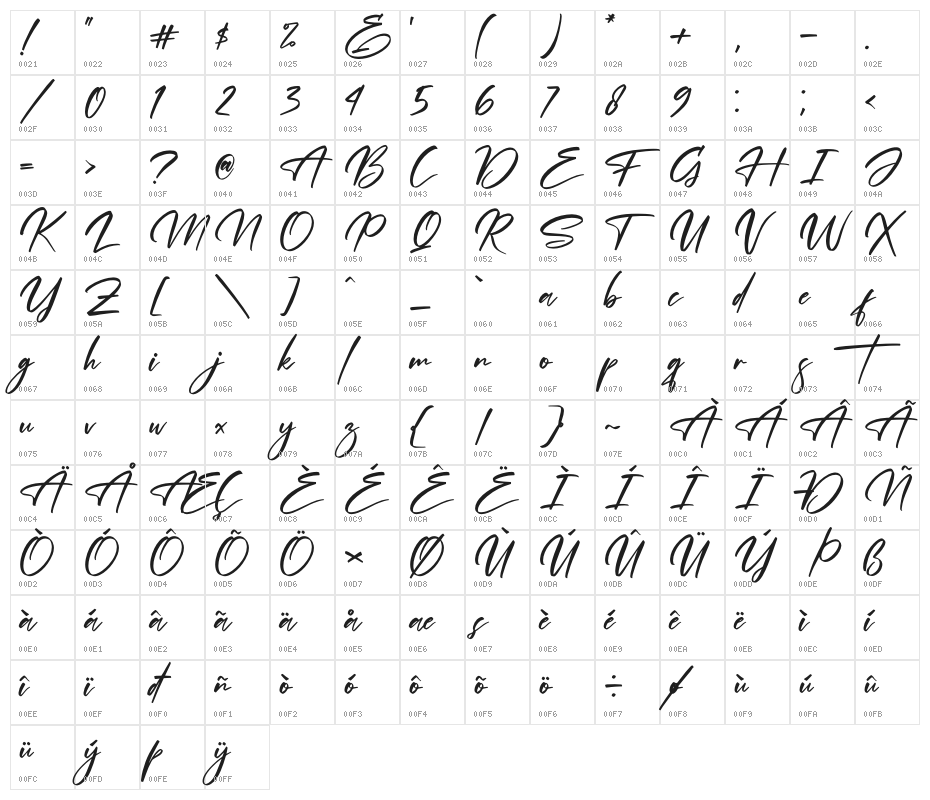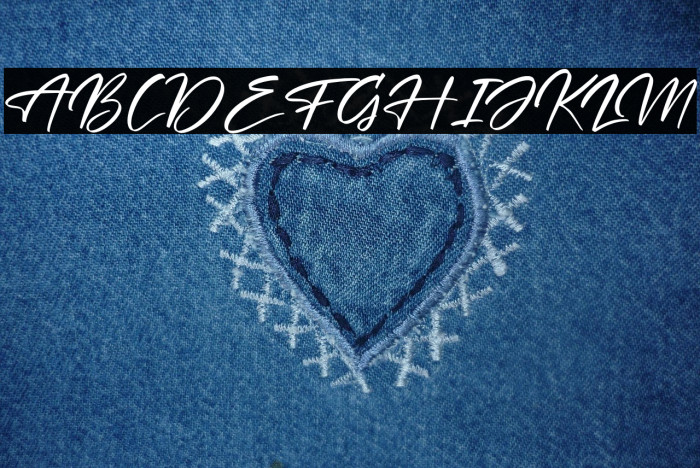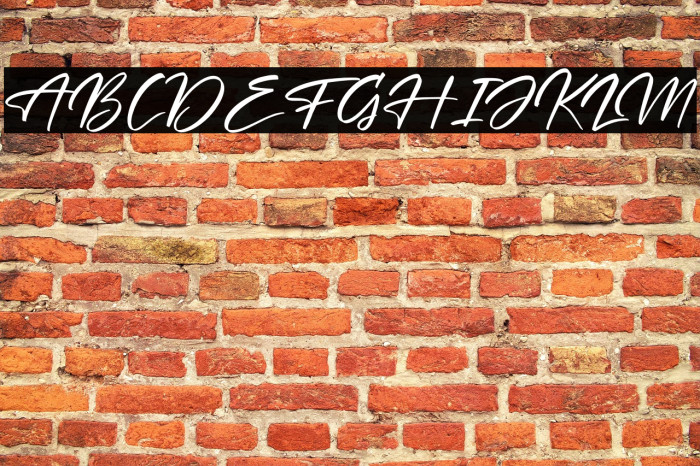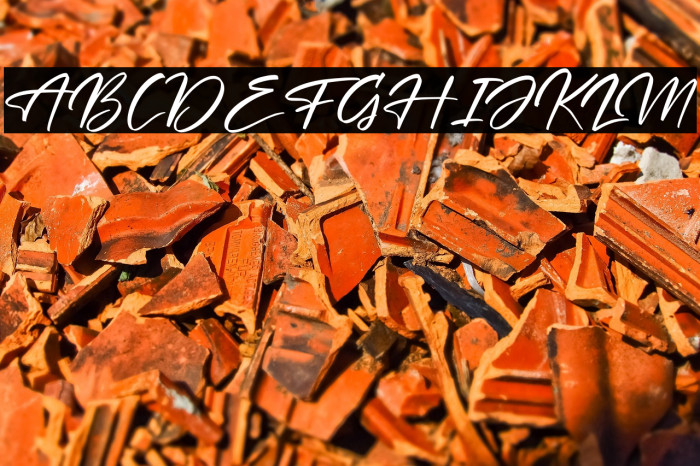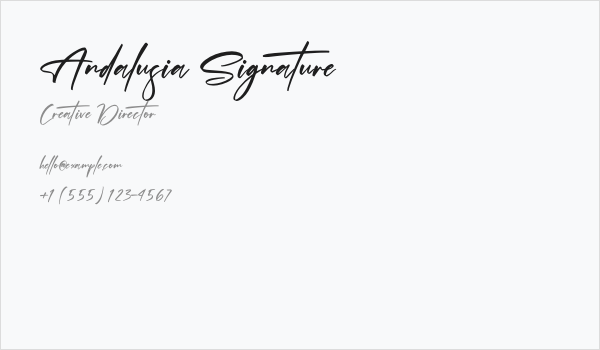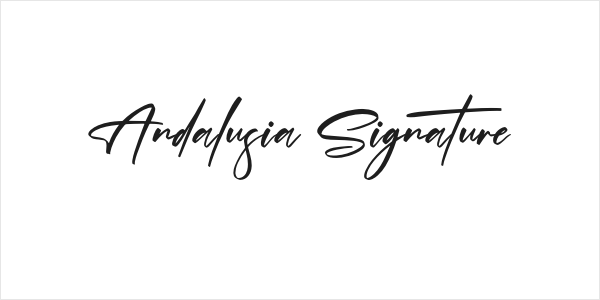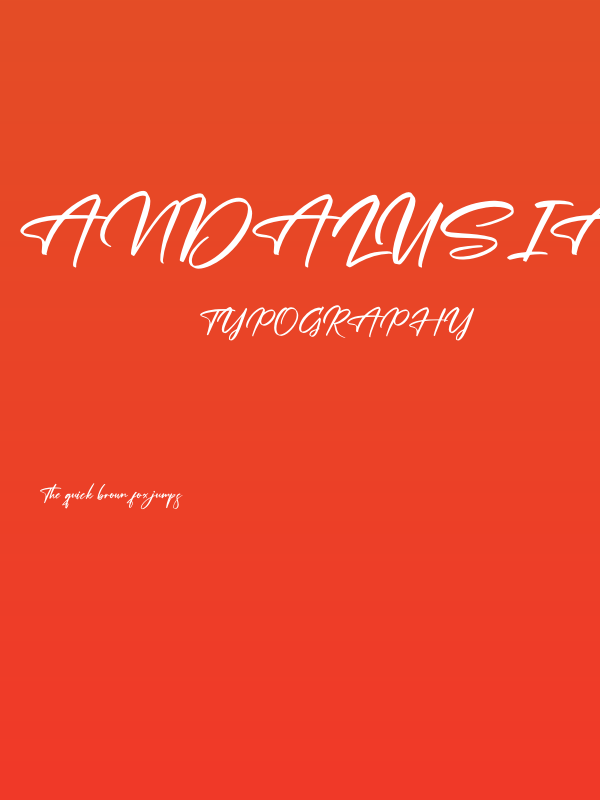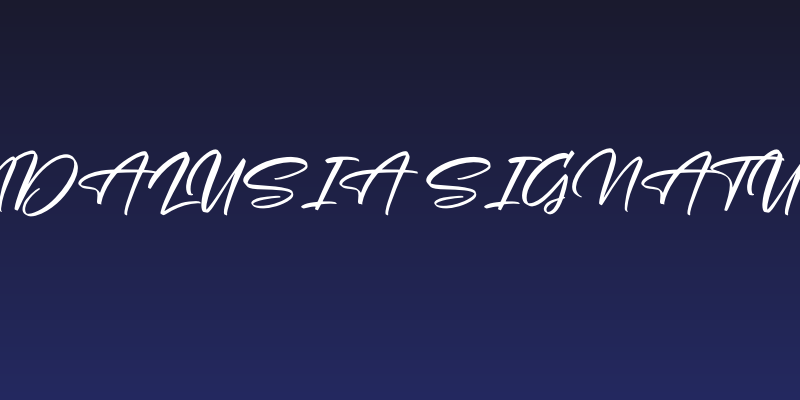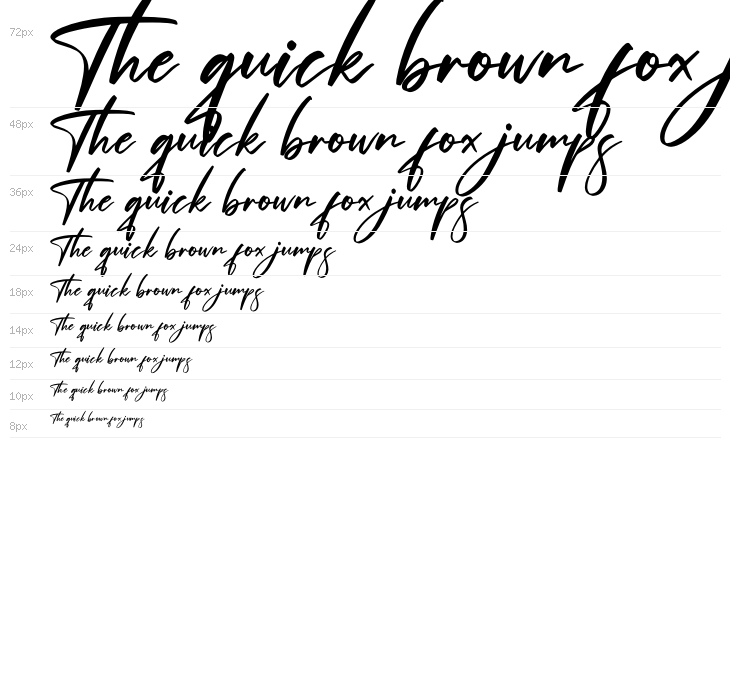
Andalusia Signature Font
Andalusia Signature Description
This font features a flowing, cursive style that mimics elegant handwriting. The characters are connected with smooth, sweeping strokes, giving it a sophisticated and artistic appearance. The uppercase letters are slightly more ornate, with flourishes that enhance their decorative quality. The lowercase letters maintain a consistent flow, creating a harmonious and cohesive look. Numbers and special characters are designed to match the overall aesthetic, ensuring a seamless integration in any text. The font's dynamic and fluid nature makes it ideal for projects that require a personal touch or a sense of elegance.
| Overall Style | Elegant, Artistic |
| Proposed Projects | Ideal for wedding invitations, personal branding, greeting cards, and elegant logos. |